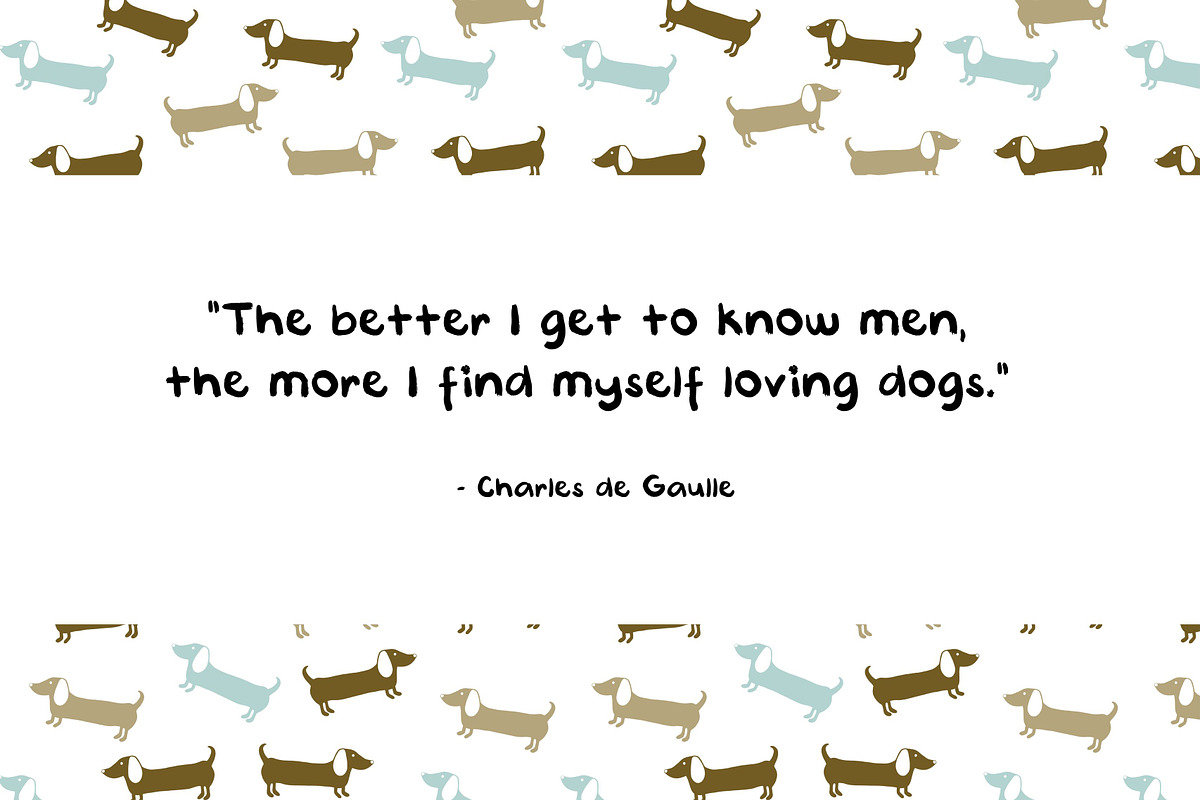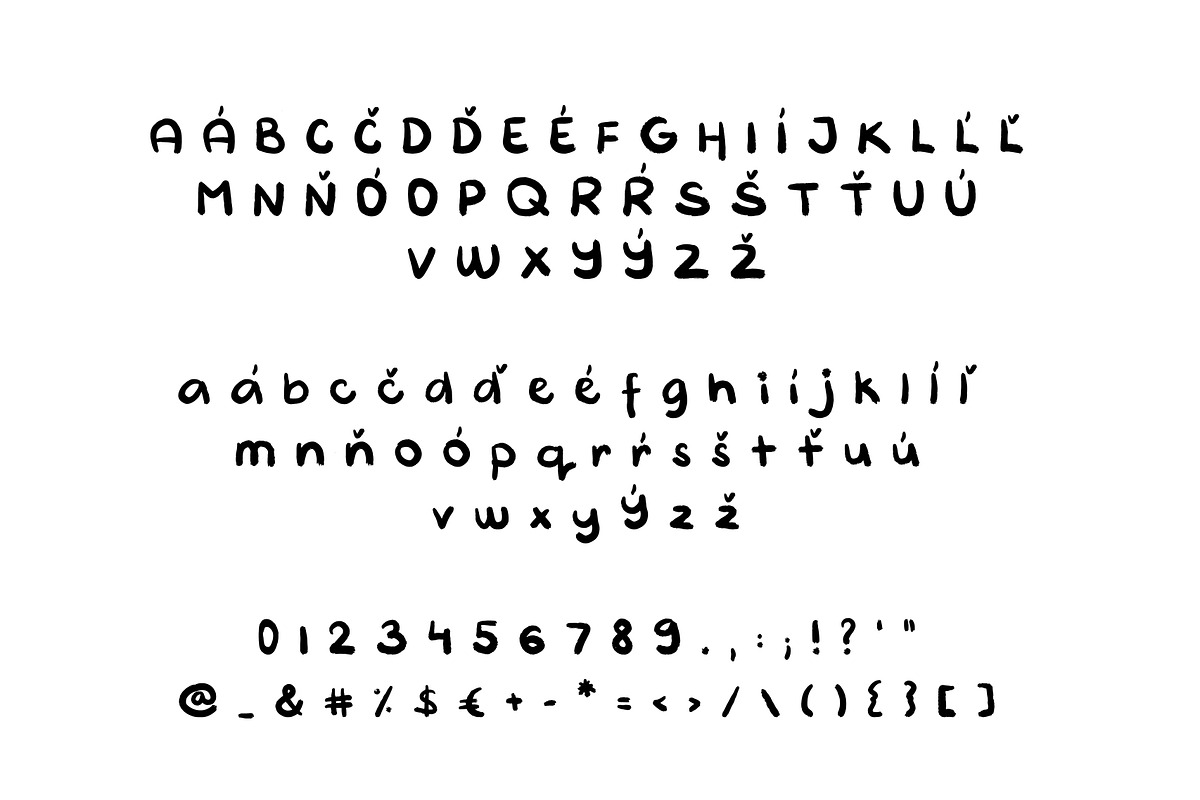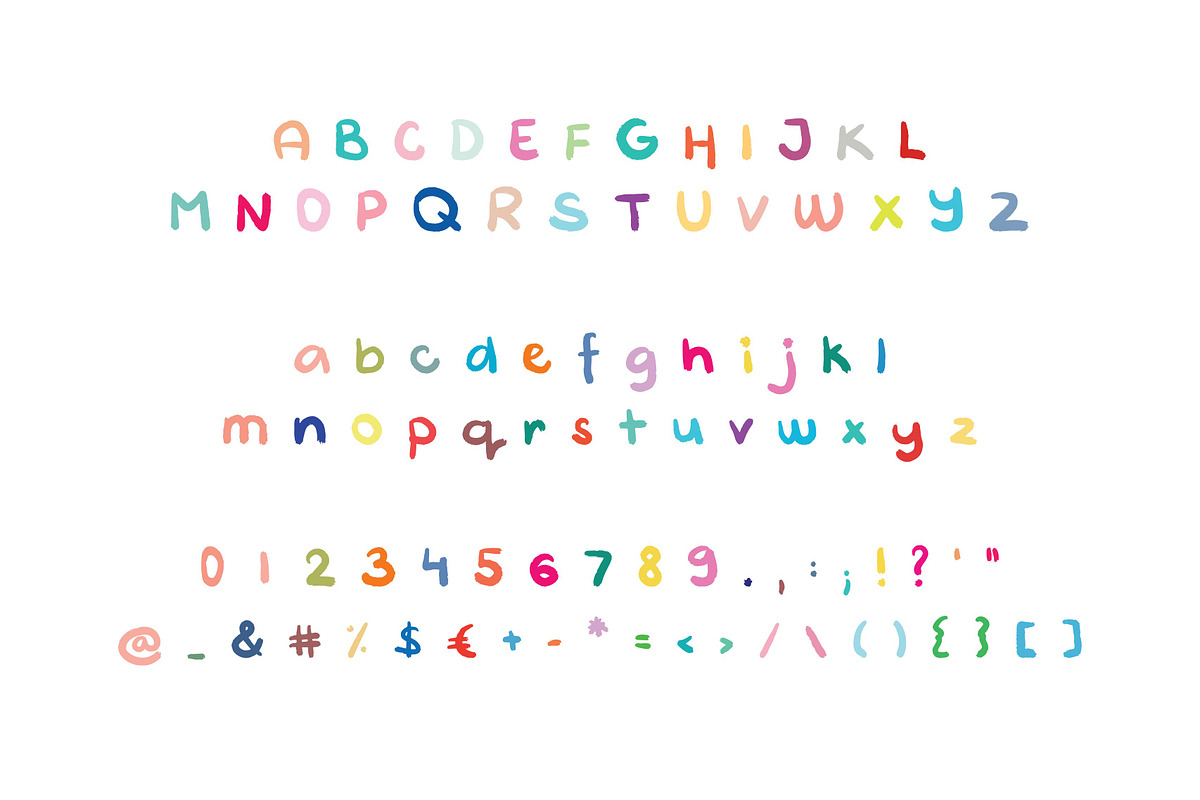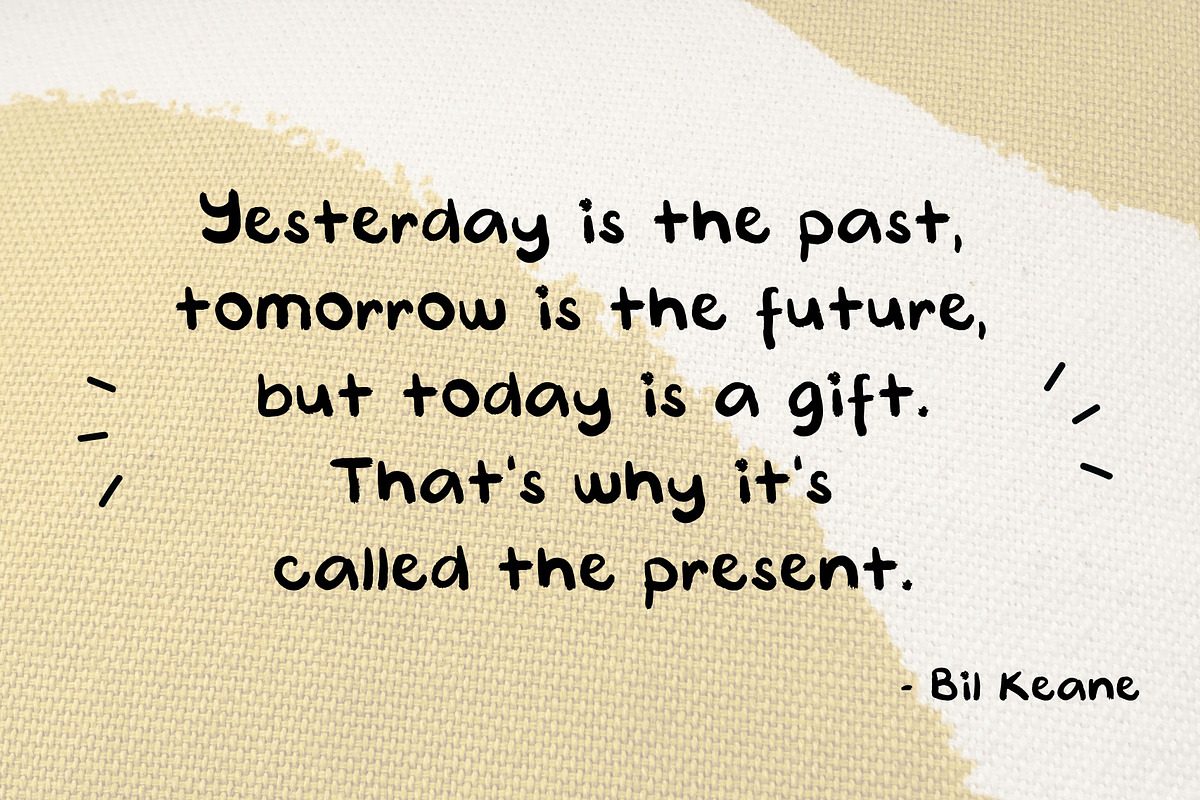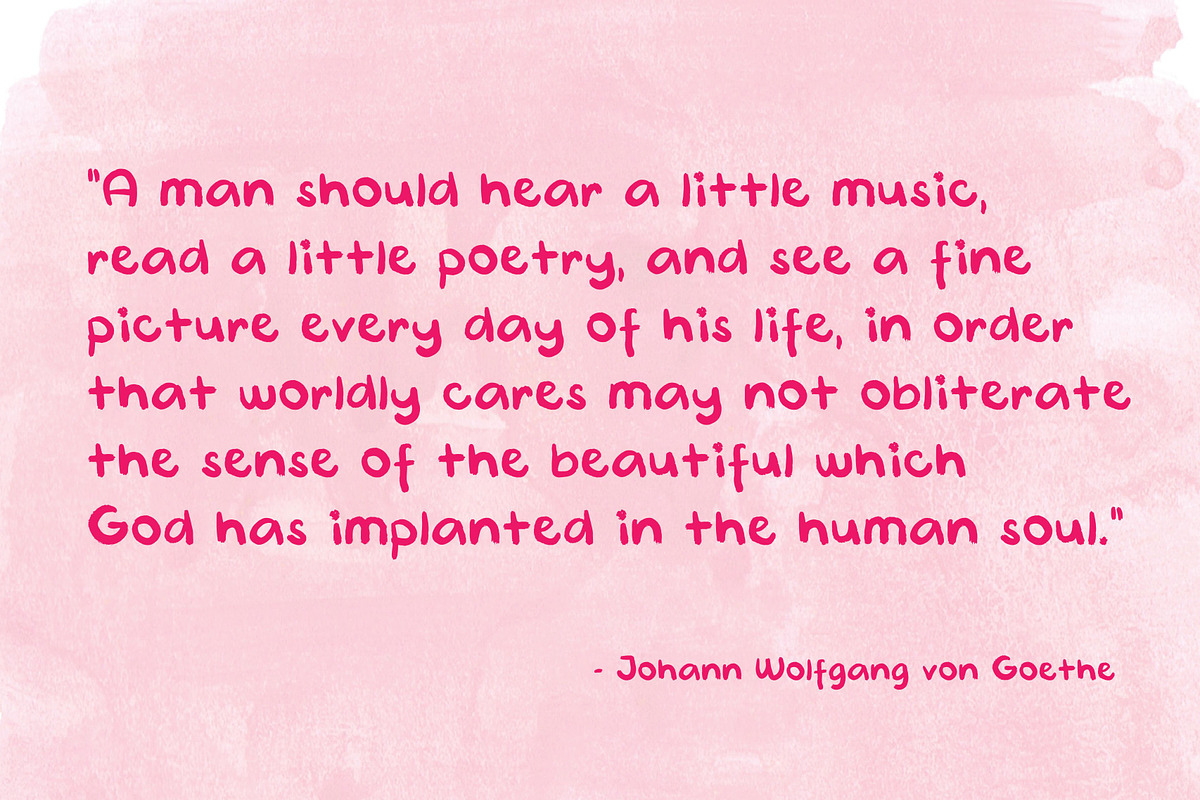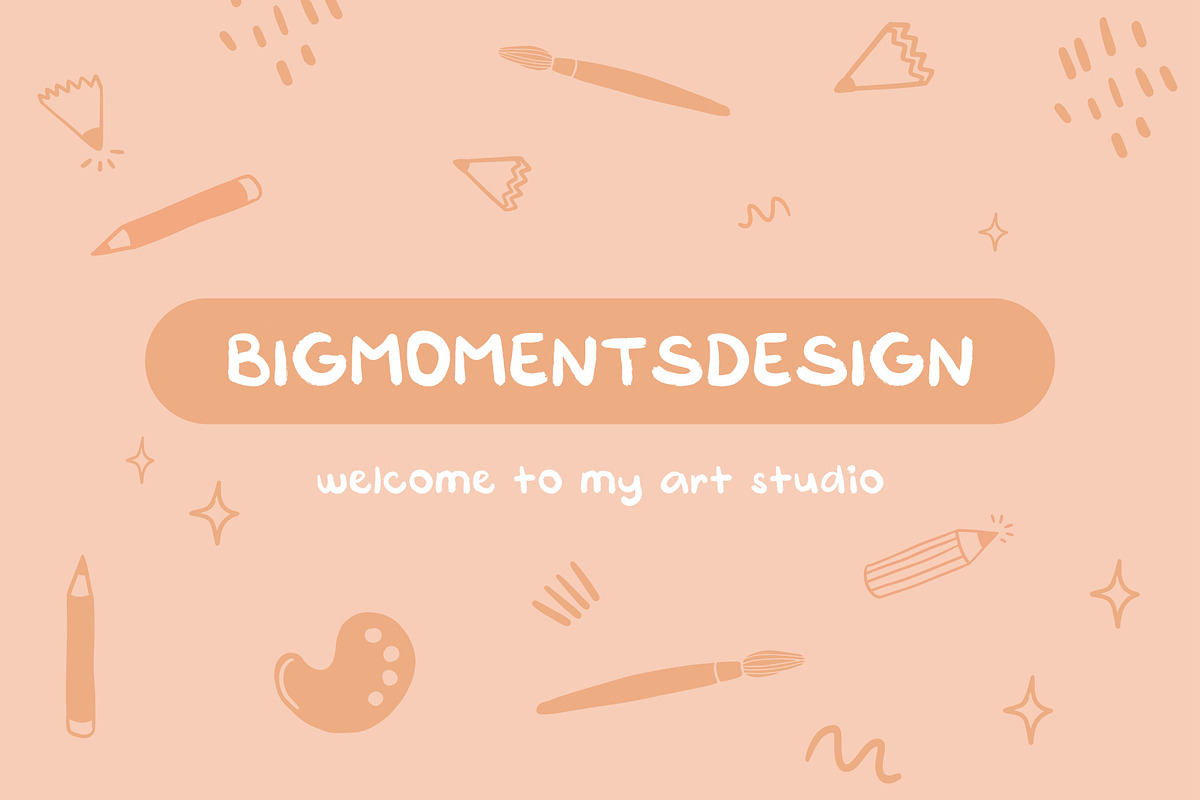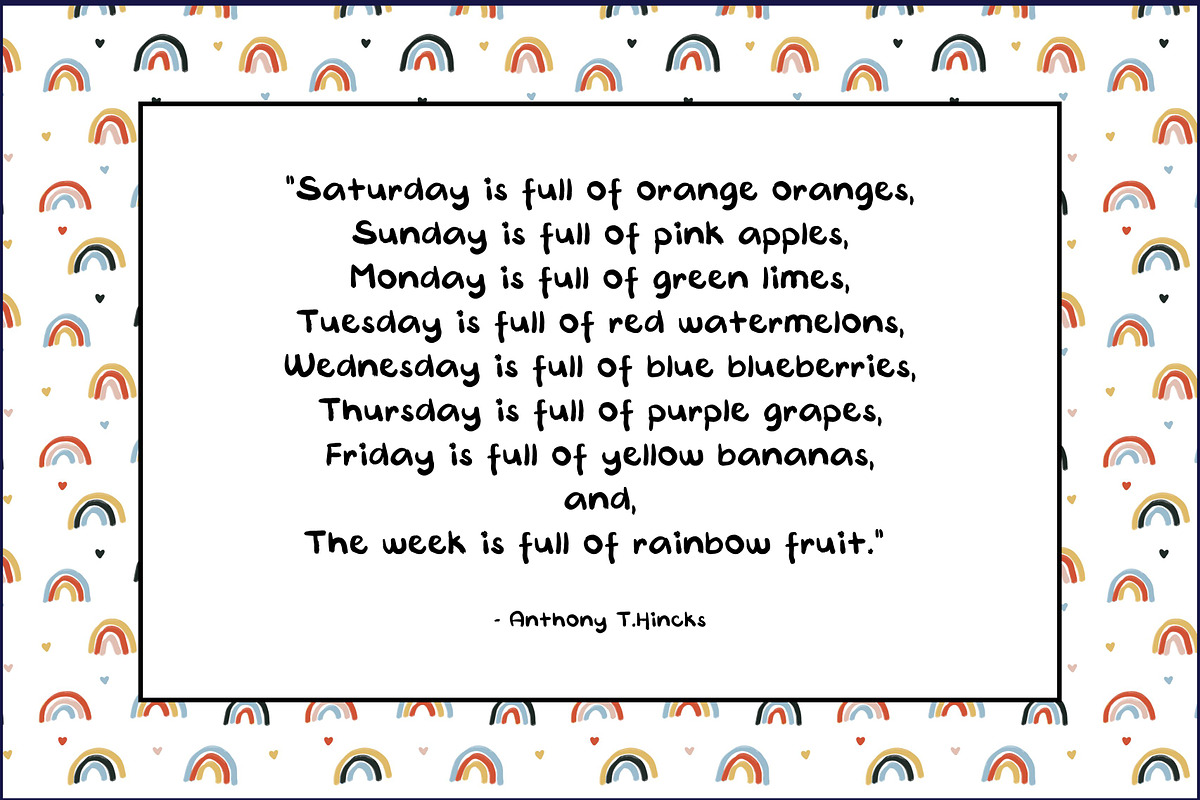
Artistic Handy Font - Handwritten
Hello guys, I am glad to present you my handwritten font Artistic Handy Font with interesting artistic style. It can be perfect for your vlog, blogs, journals, trips, travel diaries, videos and many other experiences. Lowercase, uppercase letters, numbers and characters are available. This font is perfect for creating logos, headlines, blogs, websites, stationary and other amazing stuff.
- Lowercase, uppercase letters, numbers and characters are available.